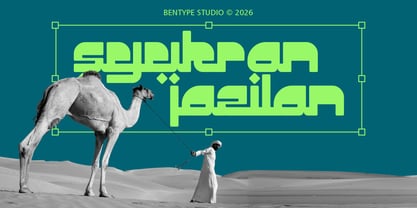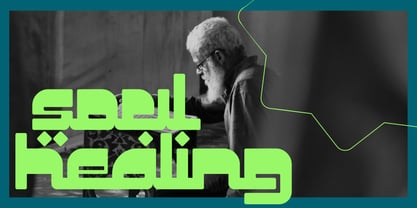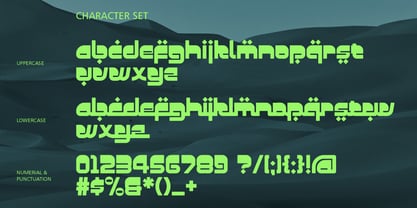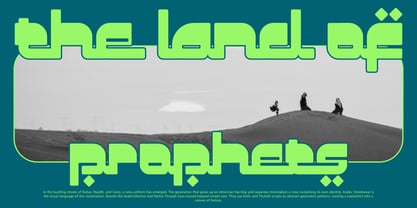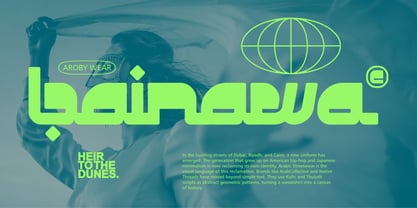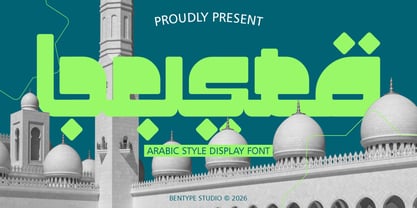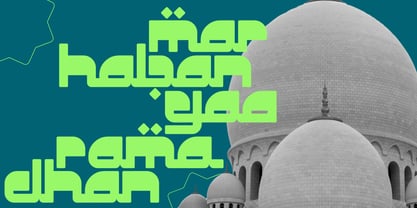
Busta
La familia tipográfica Busta fue diseñada por Muhammad Farkhan y publicada por Bentype. Busta contiene 1 estilos. Más información sobre esta familia
Busta - Arabic Style Display Font delivers a modern calligraphic aesthetic that blends seamlessly with contemporary design. As an elegant, faith-inspired font, Busta is the premier choice for branding, logo design, and exclusive invitations. Busta brings a sophisticated touch to modern calligraphy, making it ideal for branding and exclusive events. Whether you’re designing a logo or an invitation, this elegant Arabic-inspired font adds a timeless religious feel